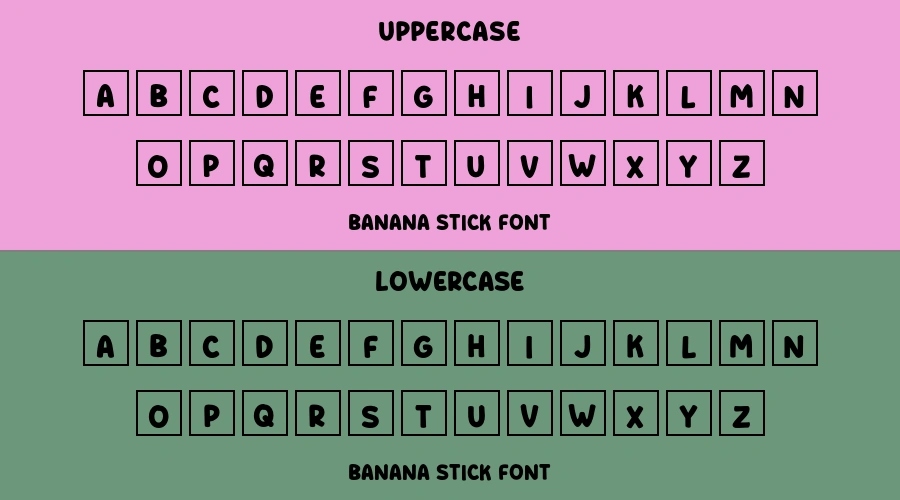
About Banana Stick Font
When typographic excellence matters most, Banana Stick Font delivers through its thoughtful blend of hand-drawn quality and originality. Specially crafted for social media content, it offers the refinement and brand power required for sophisticated design work. Every detail serves a purpose.
The character set showcases thoughtful details like harmonious shapes alongside functional superior letters. This proves especially valuable in compliance materials, where numerical alignment directly influences results. Particular attention was paid to stem weight and contemporary relevance during development.